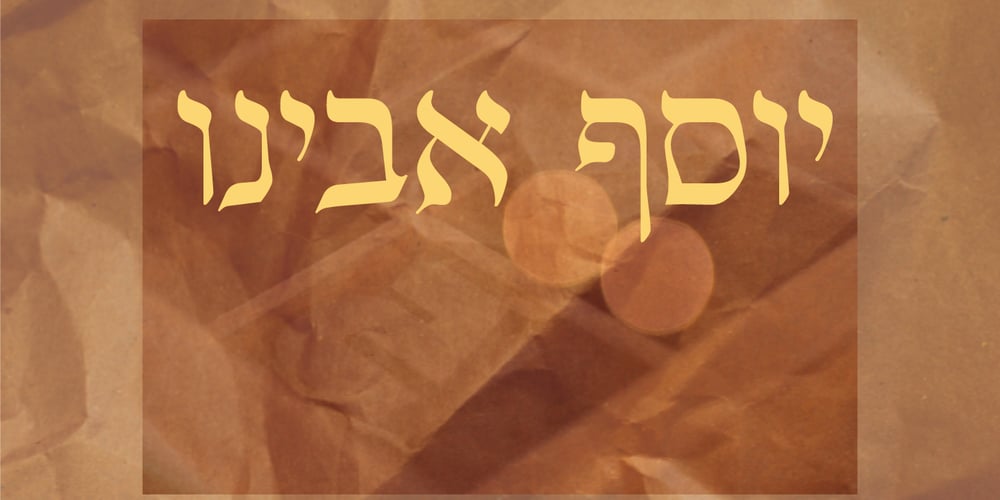
New Livorno MF
New Livorno MF font
New Livorno MF Font Family was designed by Zvika Rosenberg and published by Masterfont. New Livorno MF contains 4 styles and family package options. Born in the city of Livorno, Italy, where one could find a dozen printers who printed Hebrew books. Those books were sent to jewish communities in the middle east.